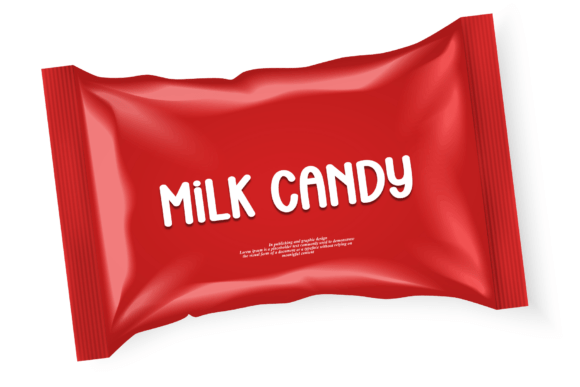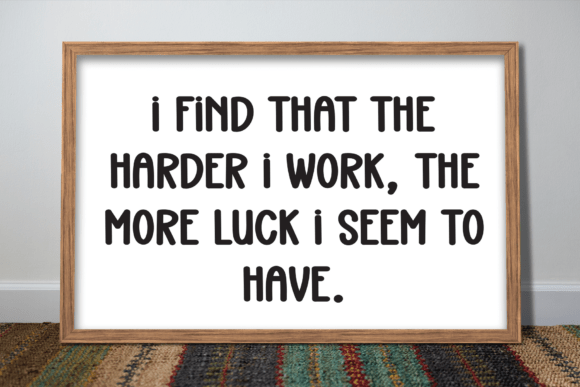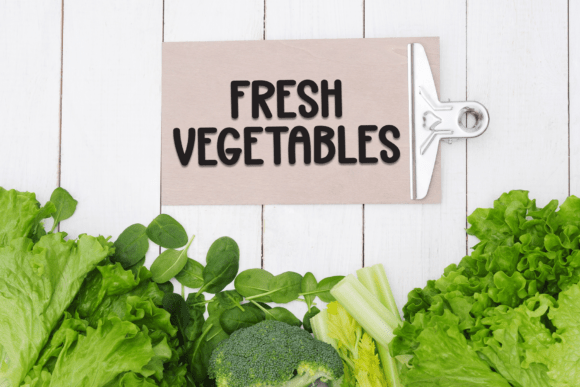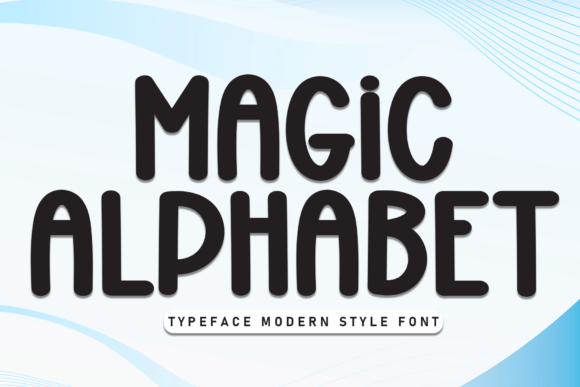
Introduction to Magic Alphabet Font
Magic Alphabet is a friendly and modern rounded font that’s perfect for kids’ projects, educational content, and fun branding.
With smooth curves and a cheerful vibe, this typeface adds warmth and approachability to your designs while keeping a clean, legible structure .
Magic Alphabet Font offers exceptional quality and versatility, making it a valuable addition to your design toolkit. Whether you’re creating for personal projects or commercial use, Magic Alphabet Font delivers professional results.